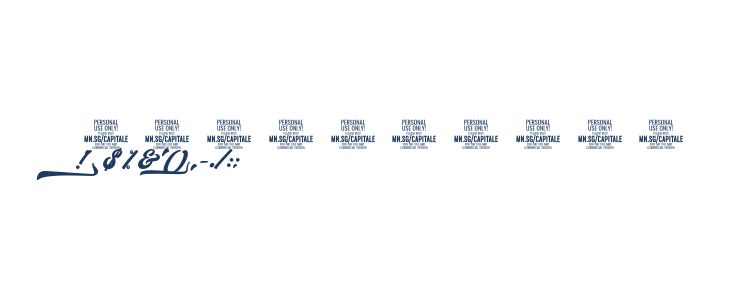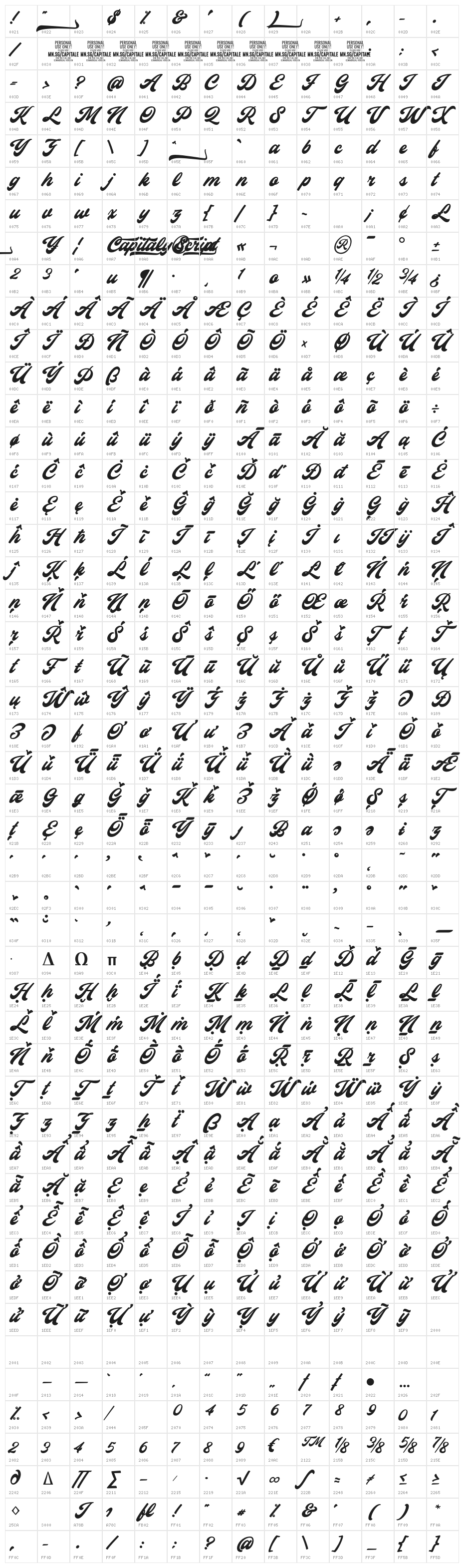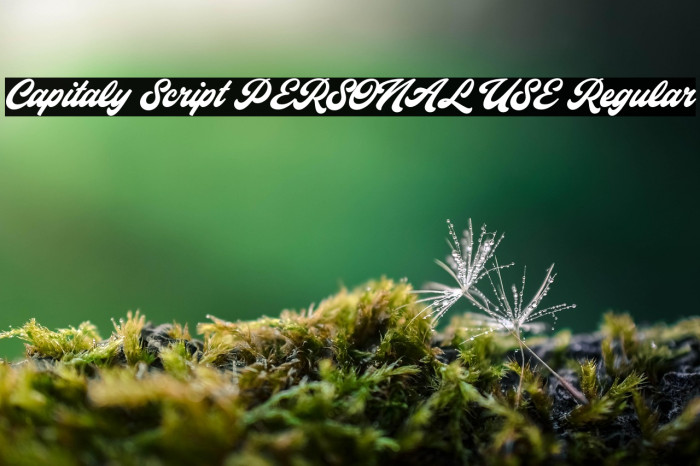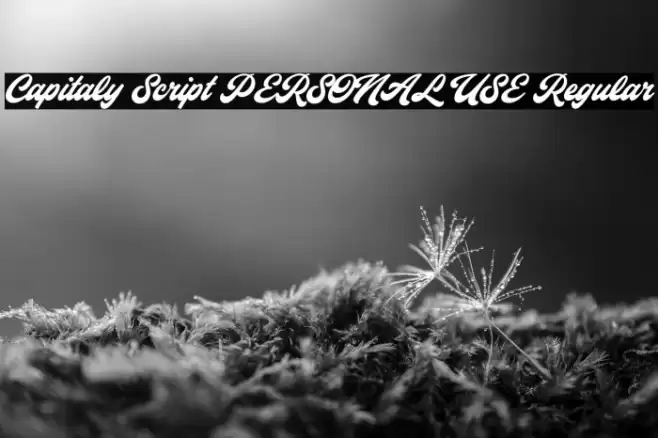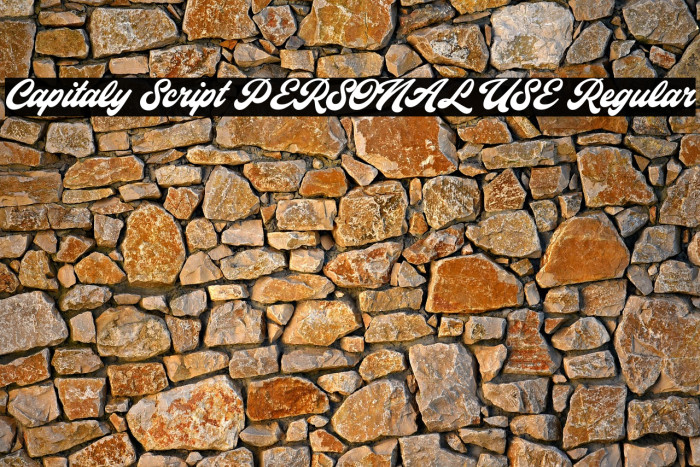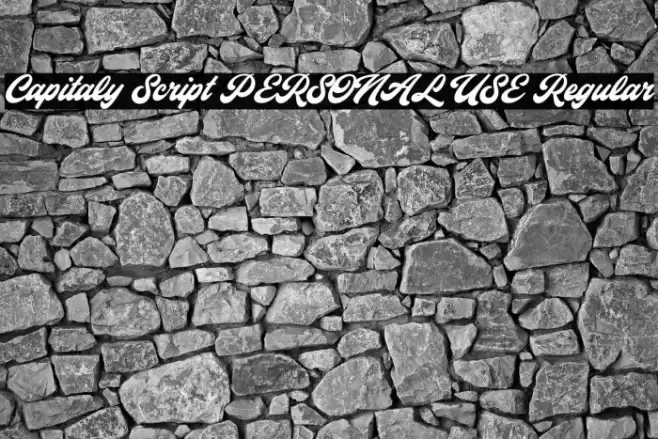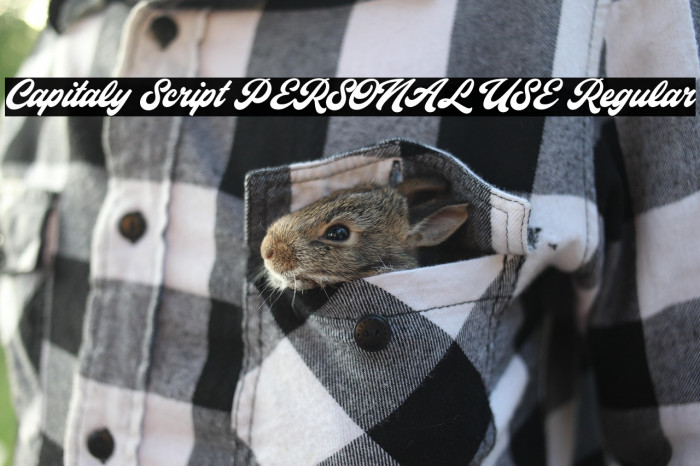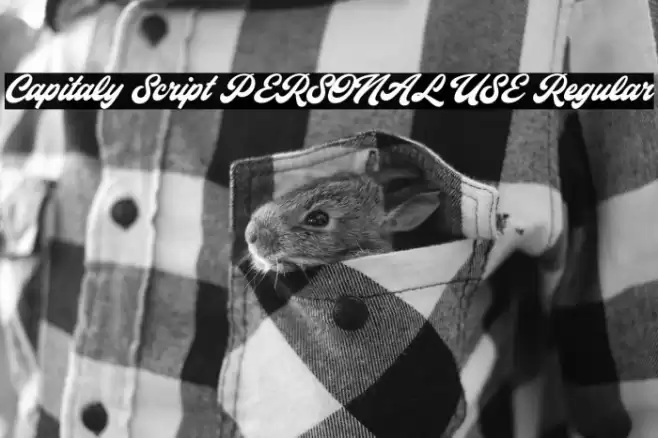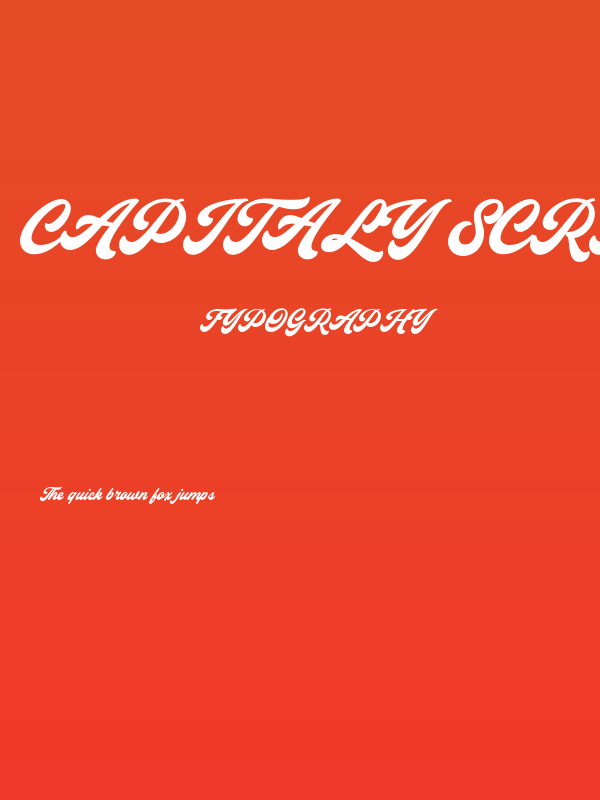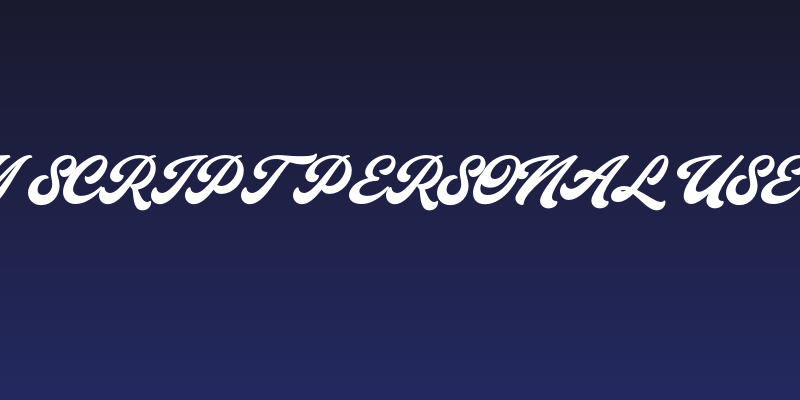
Capitaly Script PERSONAL USE Regular Font
Capitaly Script PERSONAL USE Regular Description
This script font exudes a bold and dynamic presence, characterized by its flowing, cursive style. The letters are interconnected, creating a seamless and elegant appearance. The uppercase letters are particularly striking, with dramatic flourishes and loops that add a sense of movement and flair. The lowercase letters maintain a consistent style, complementing the uppercase with their rounded forms and smooth transitions. The font's thick strokes and high contrast between thick and thin lines enhance its readability while maintaining an artistic touch. This font is ideal for making a statement, whether in headlines, logos, or decorative text.
| Proposed Projects | Ideal for branding, logo design, wedding invitations, and decorative headlines. |